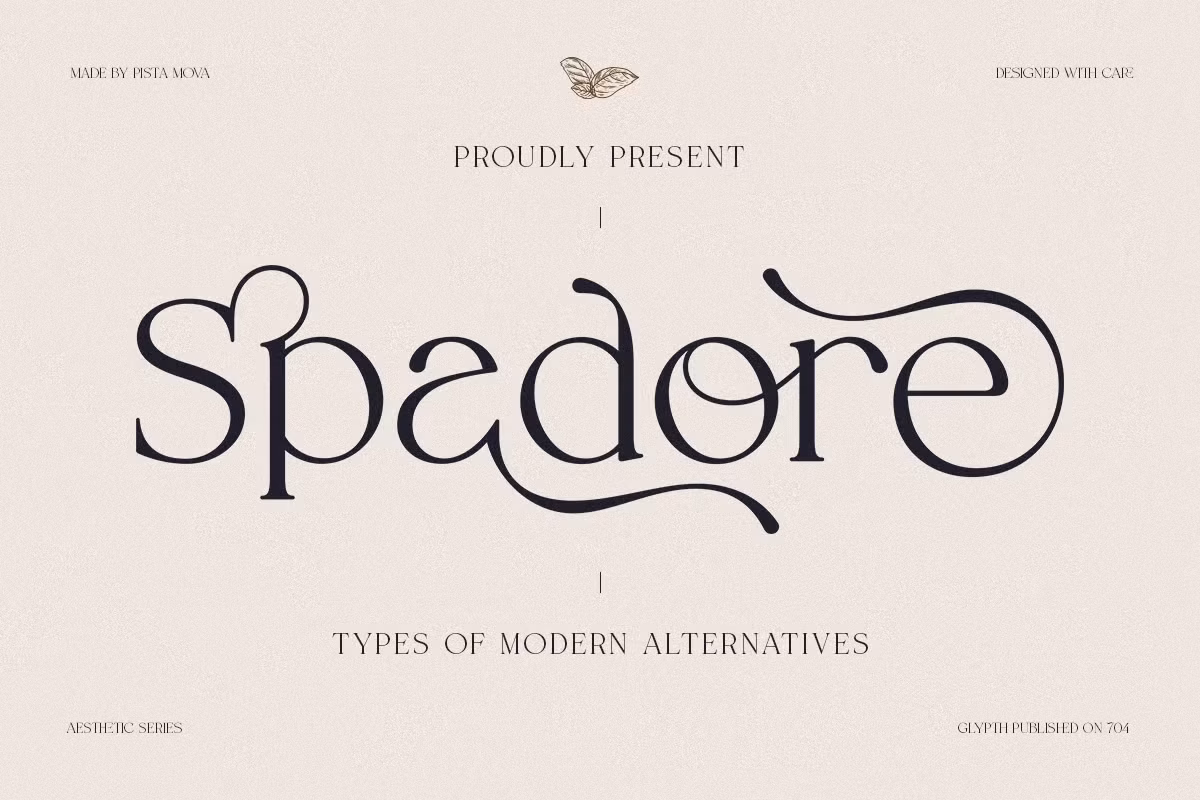
Please note, you must purchase this font for commercial use. However, you can easily download Spadore | Luxury Font Free Download for personal use and testing purposes. Spadore | Luxury Font is an elegant, high-end typeface designed with sophistication in mind. Perfect for luxury branding, upscale invitations, fashion projects, and premium product packaging, this font brings an air of refinement and exclusivity to your designs. With its sleek, modern design and elegant letterforms, Spadore | Luxury Font Free Download adds a touch of class and professionalism to any project. Whether you're creating a luxury logo, a stylish invitation, or a chic brand identity, this font ensures your message is delivered with elegance and grace. Download Spadore | Luxury Font Free Download today and explore its potential before opting for a commercial license.